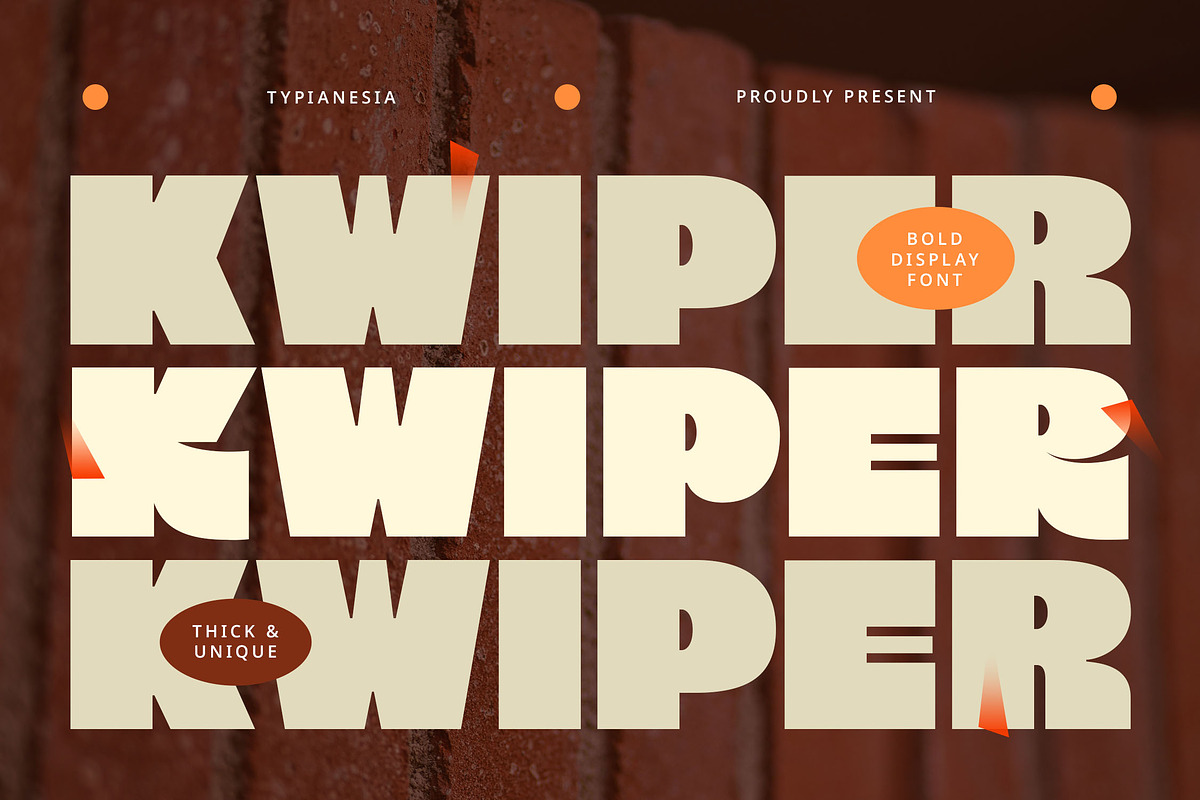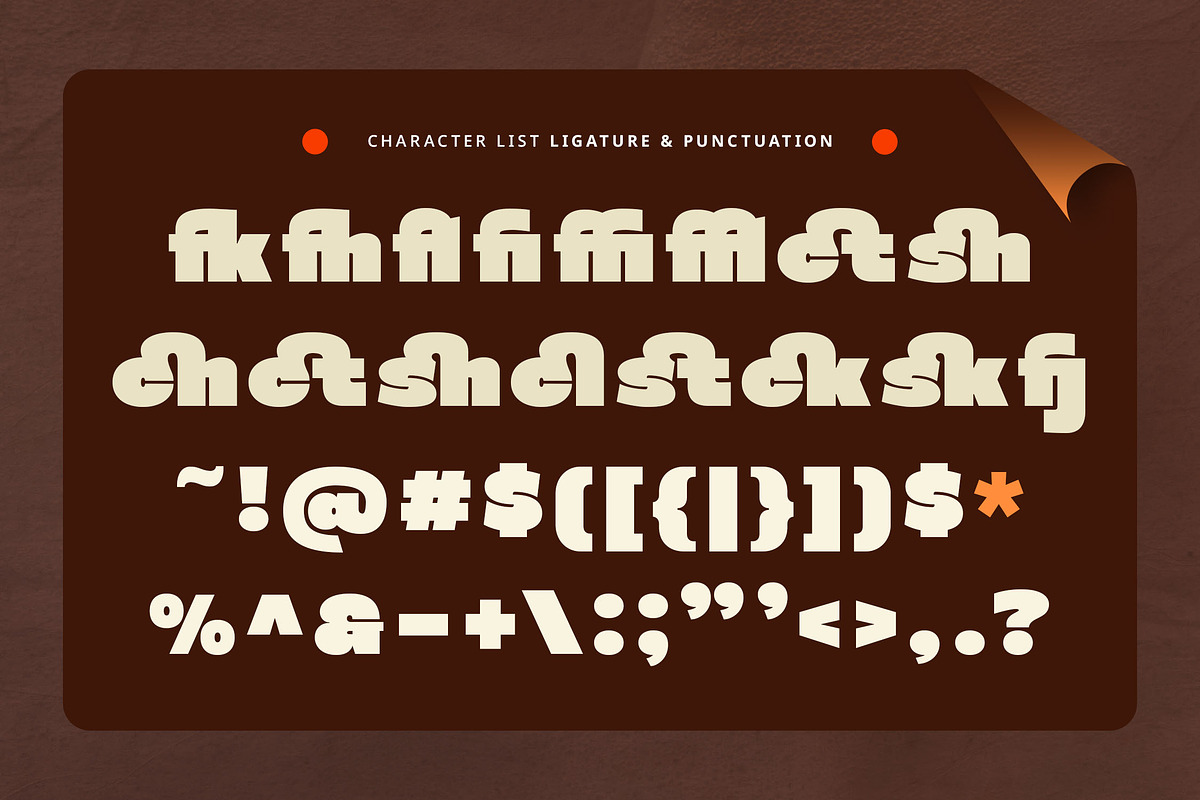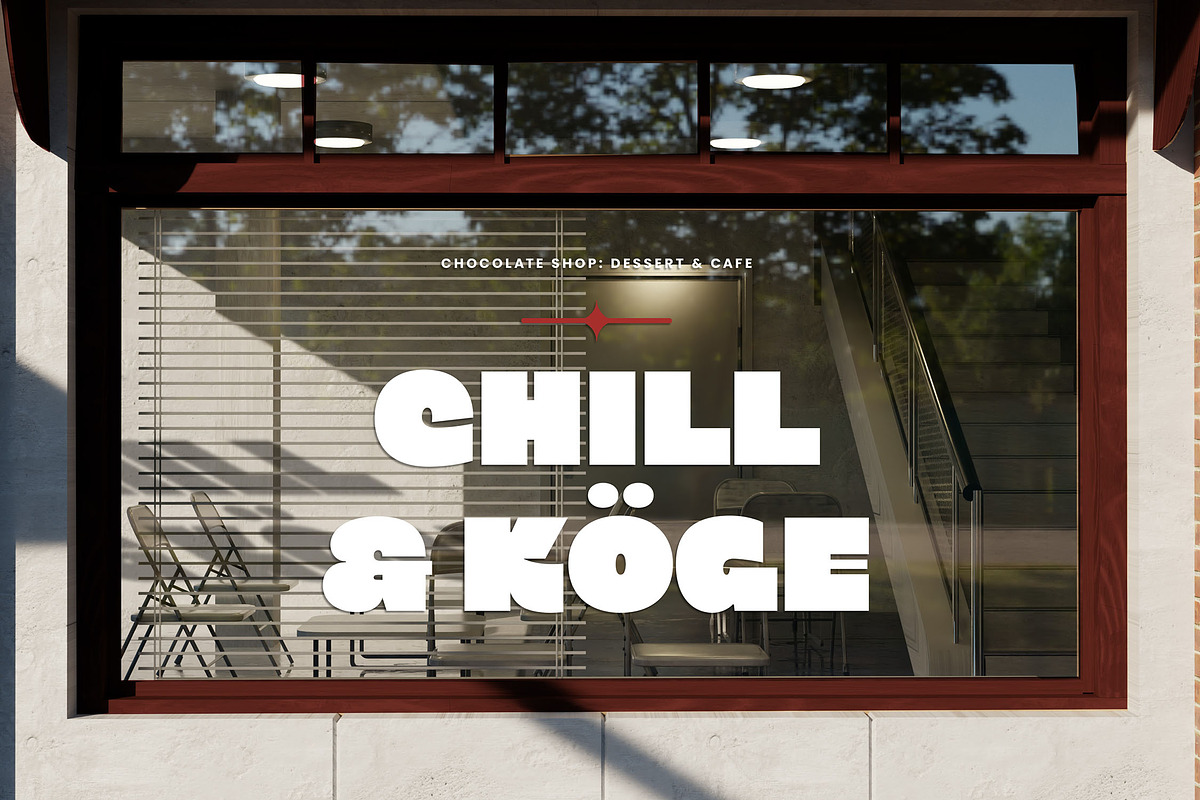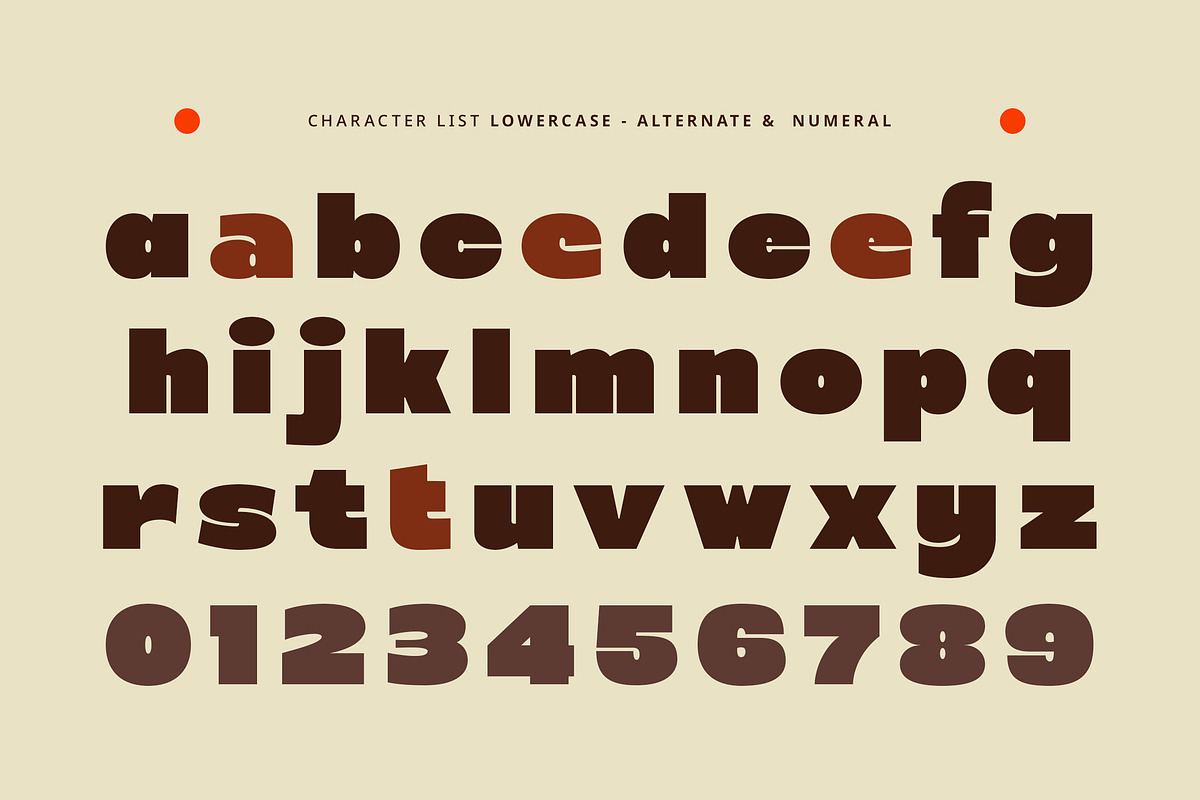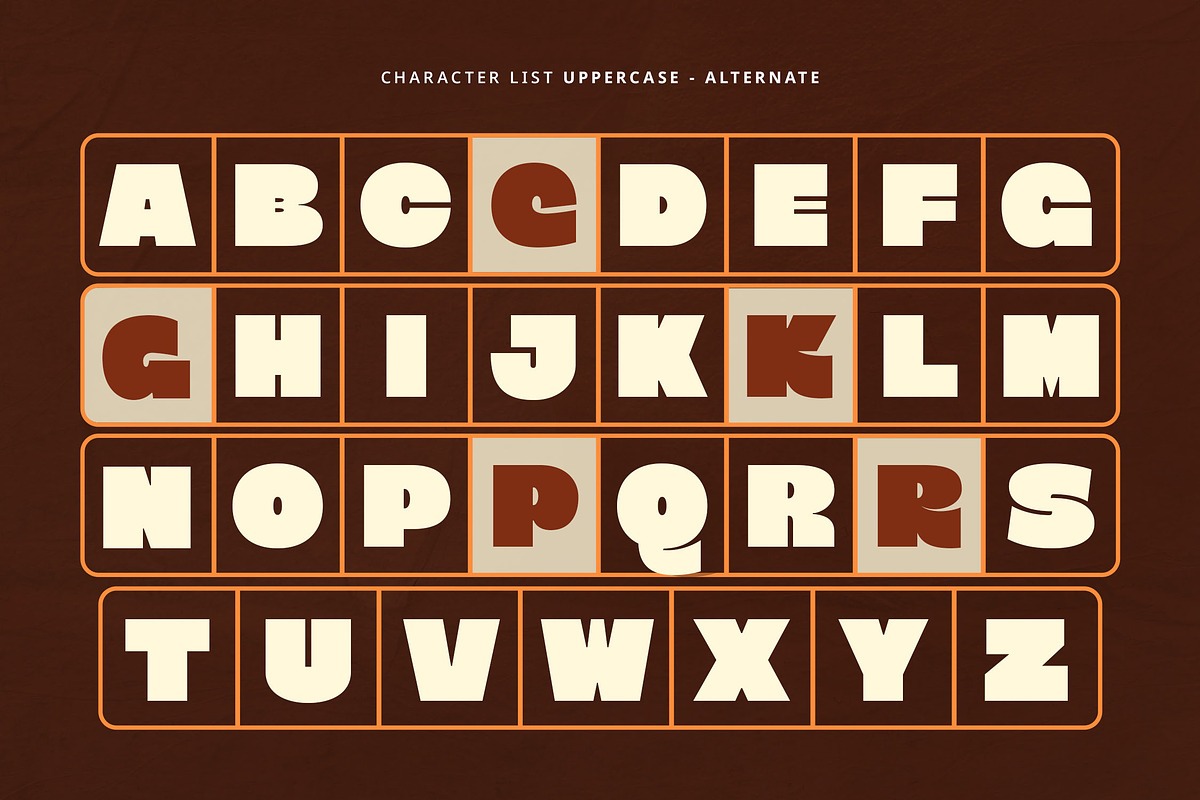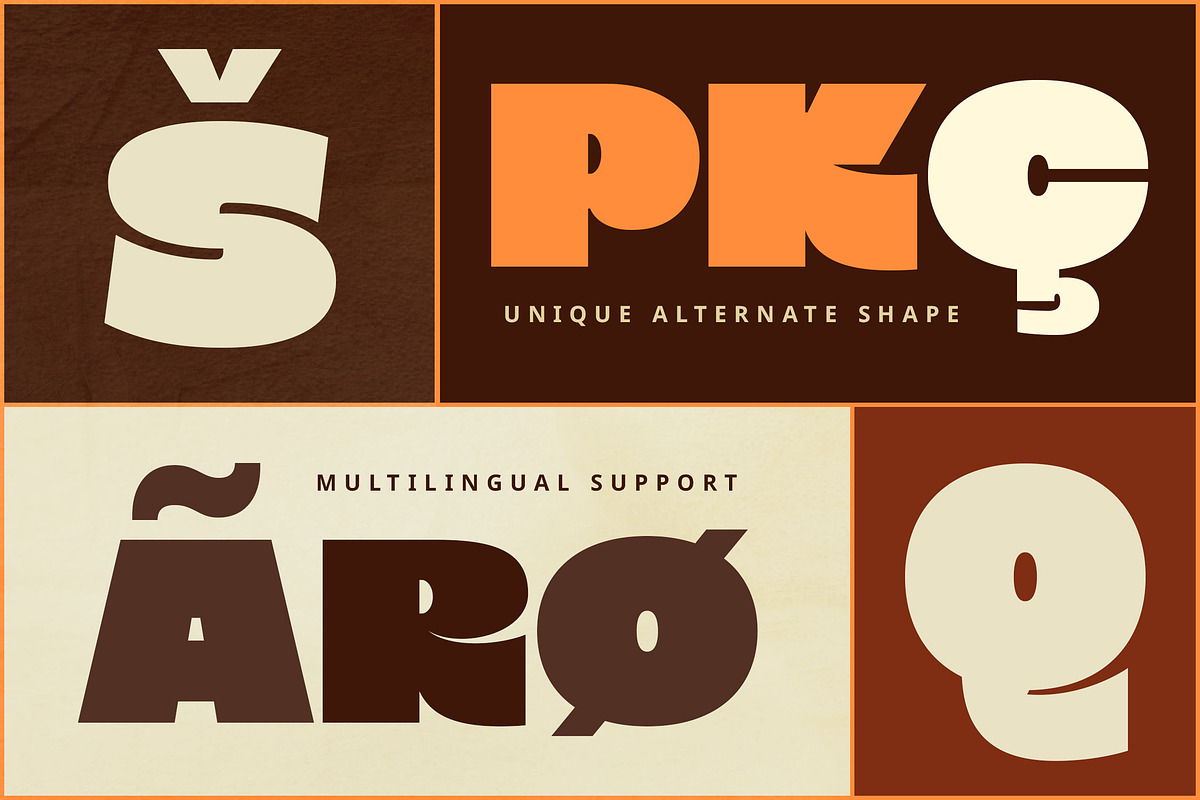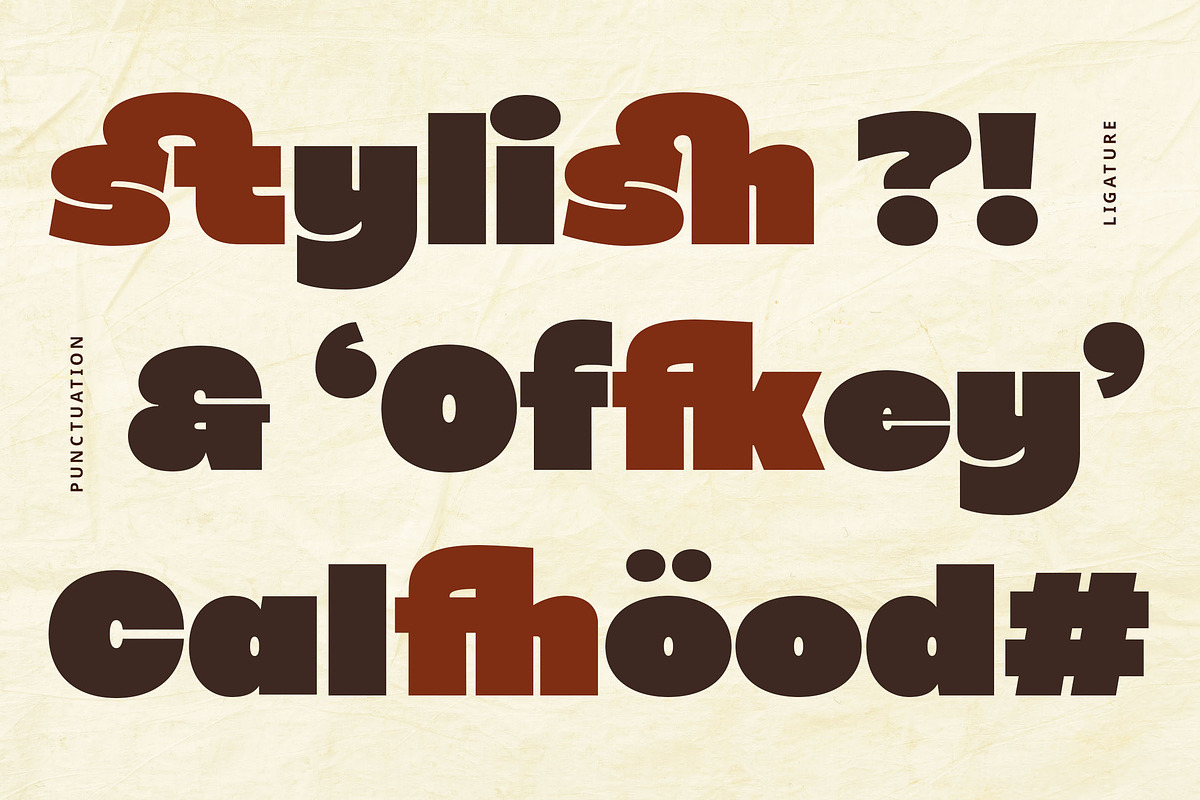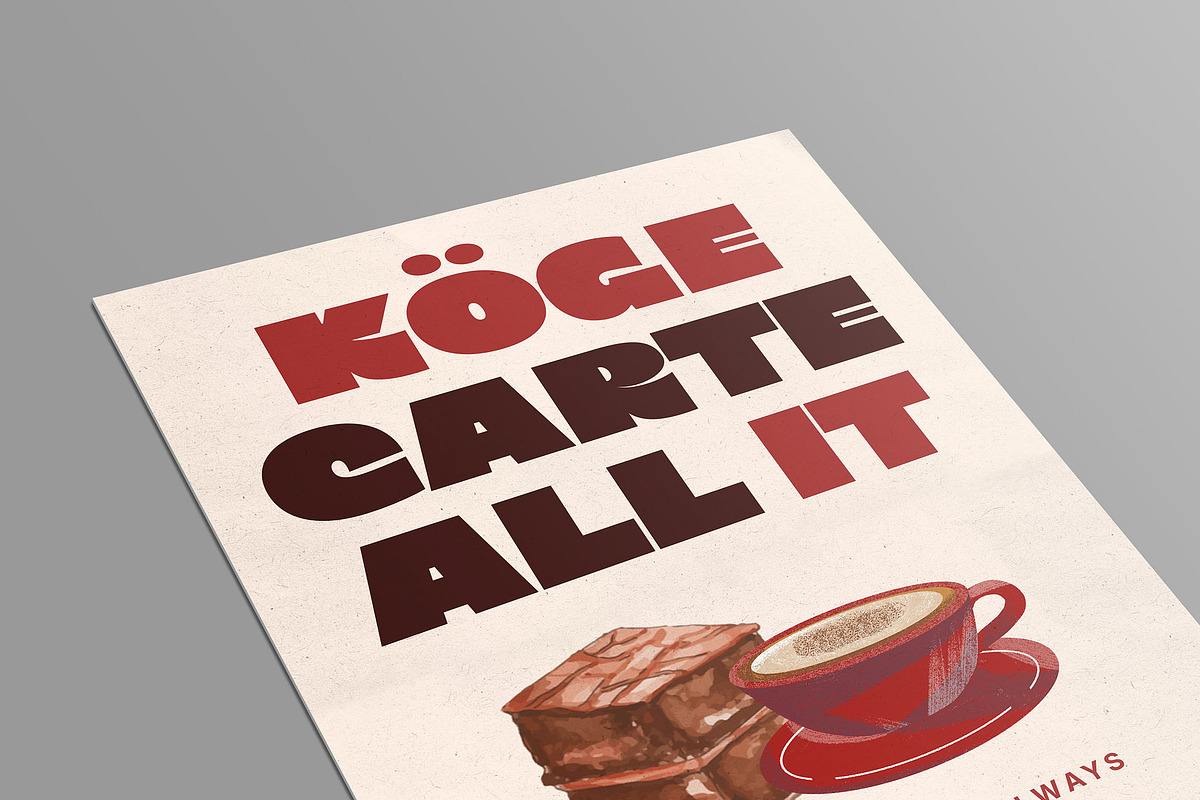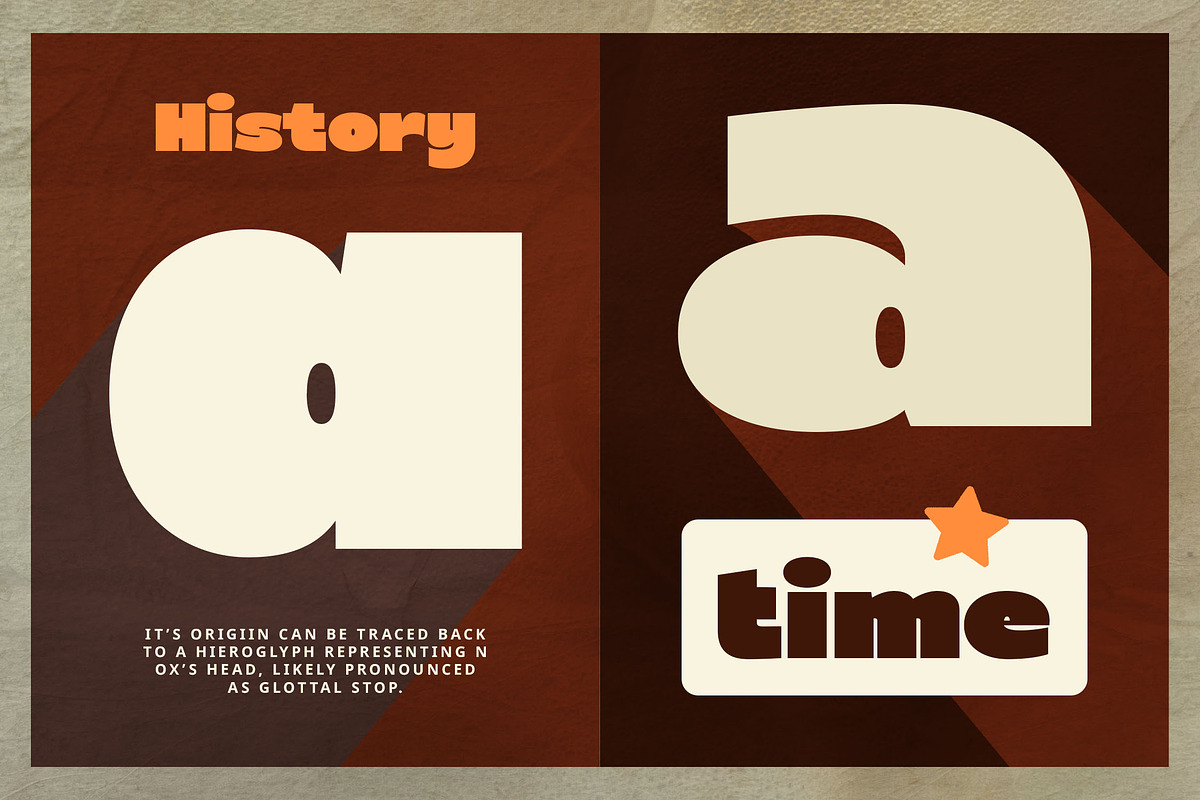
Kwiper - Modern Bold Logo Sans Font
Kwiper - Modern Bold Logo Sans Fontt - Playful & Fun Thick Chunky Display Font
Kwiper is a heavy display font designed to grab attention and make a powerful statement. Its unique and chunky characteristics give it a bold, retro-modern feel, ideal for a variety of design applications, including logos, branding, headlines, posters, advertising, product packaging and any projects that demand a strong and memorable visual presence. With Kwiper, you can easily create typpography that is full of energy and personality. The font also comes with ligatures and extensive multilingual support, allowing you to experiment and achieve a truly original look. Kwiper is engineered to make your designs bold, unforgettable, and full of character.